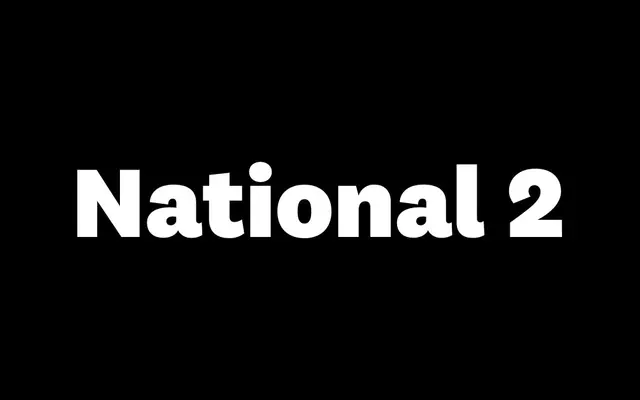
National 2
Klim Type Foundry · Kris Sowersby · 2017
A redrawn Akzidenz-era grotesque sans, ten years in the making, with refined curves and a four-width family for any brief.
A redrawn grotesque by Kris Sowersby, ten years in the making, with every letter remastered, weight distribution corrected and curves refined. Sixteen styles run from Thin to Black with matching italics, and the wider system extends into National 2 Narrow, Condensed and Compressed for tighter settings. The Akzidenz-era detailing keeps the voice humble and workmanlike, which is why brands and editorial teams reach for it when they want a steady sans without obvious mannerisms.
Klim classifies it as Modern: Lineal/Grotesque; a complete 10-year overhaul of National with every letter redrawn and remastered, better weight distribution, refined curves and three new widths added (Narrow, Condensed, Compressed).